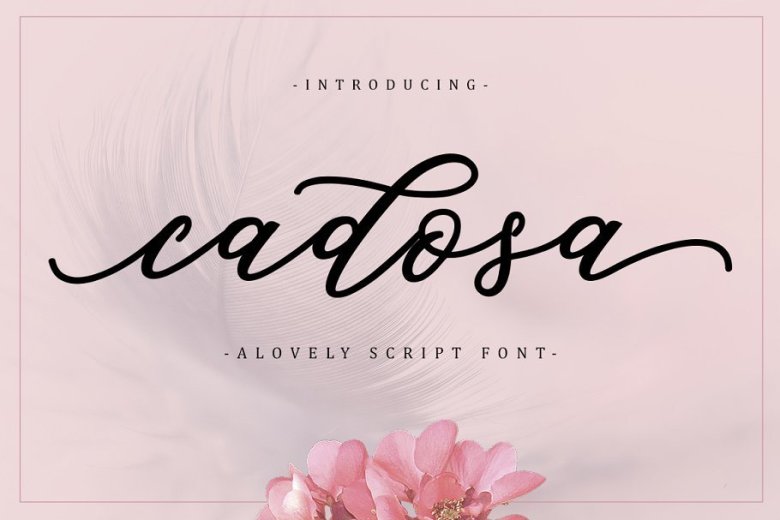
Cadosa Script Font
A lovely script font – Combine it with other fonts and add style in your project. Introducing Cadosa Font. Cadosa is a modern calligraphy font. Cadosa a beautiful for logotype, website header, fashion design,wedding card design and any more. Bellisia comes with elegant style, It also comes as a Cadosa font, It contains a full set of lower & uppercase letters, a large range of punctuation, numerals, and multilingual support.